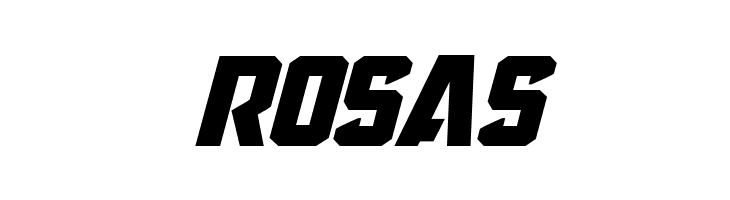
PelitaGrandeStd-BoldItalic Font
- Font: PelitaGrandeStd-BoldItalic
A bold, italic font with a dynamic and angular design, perfect for impactful visuals.